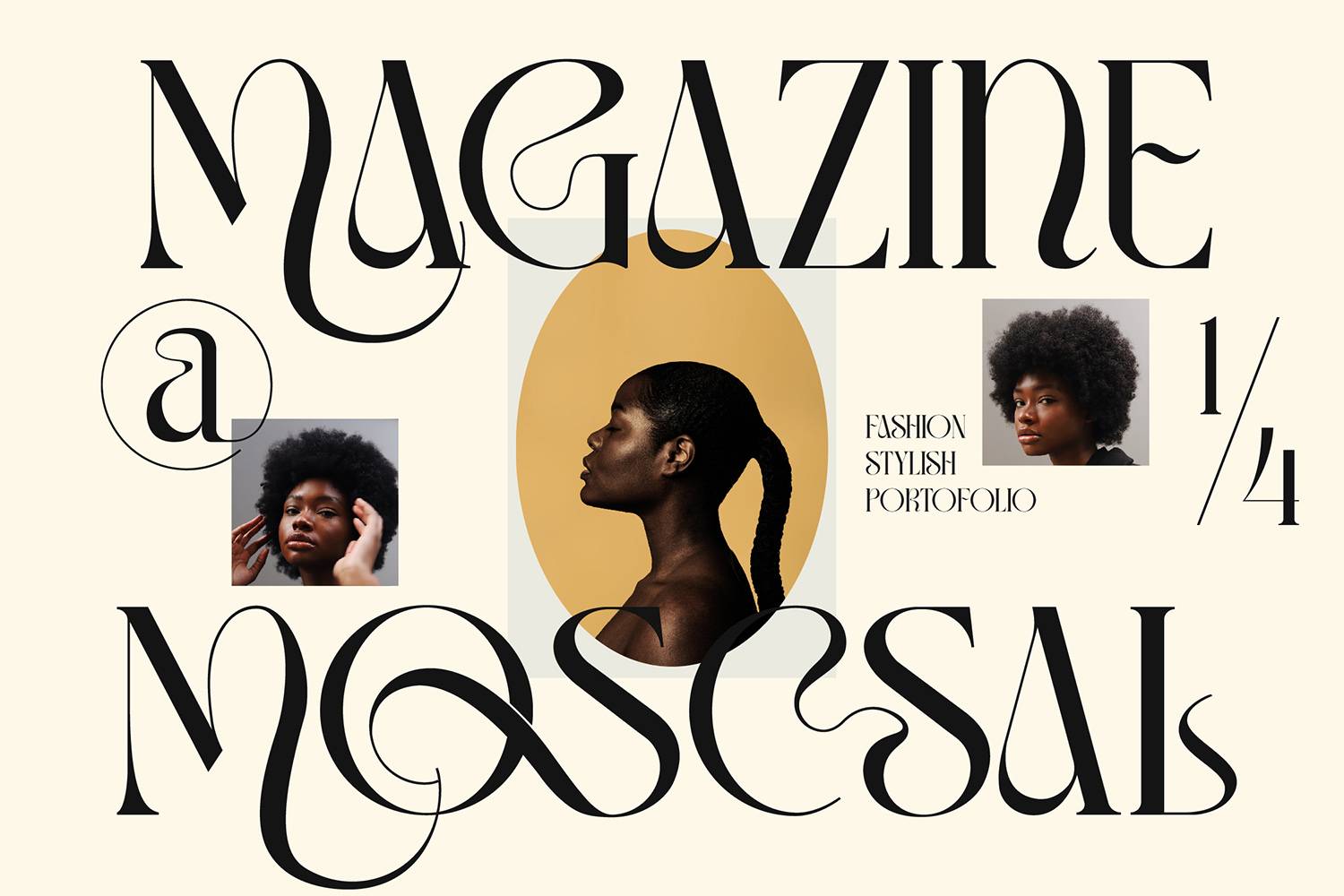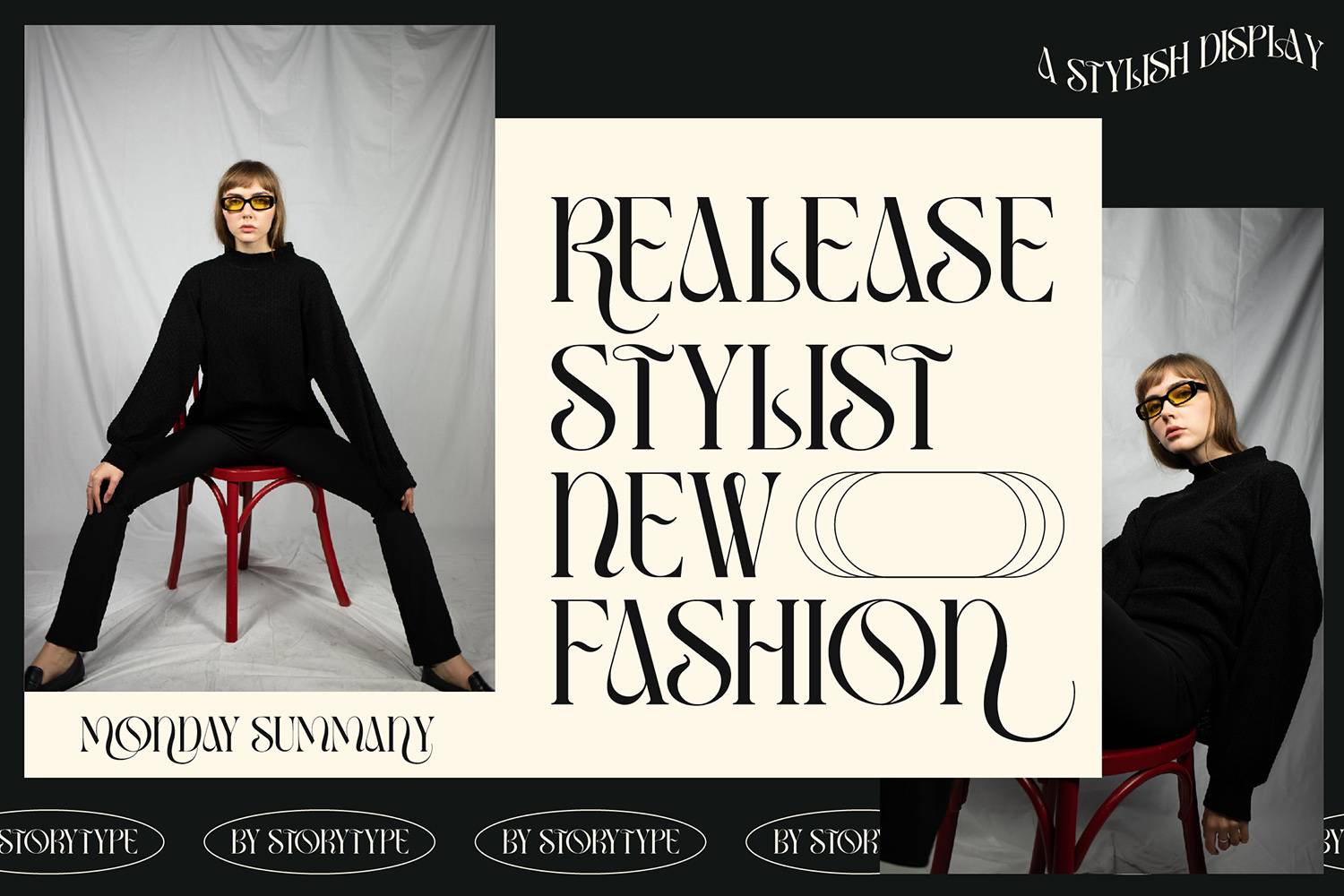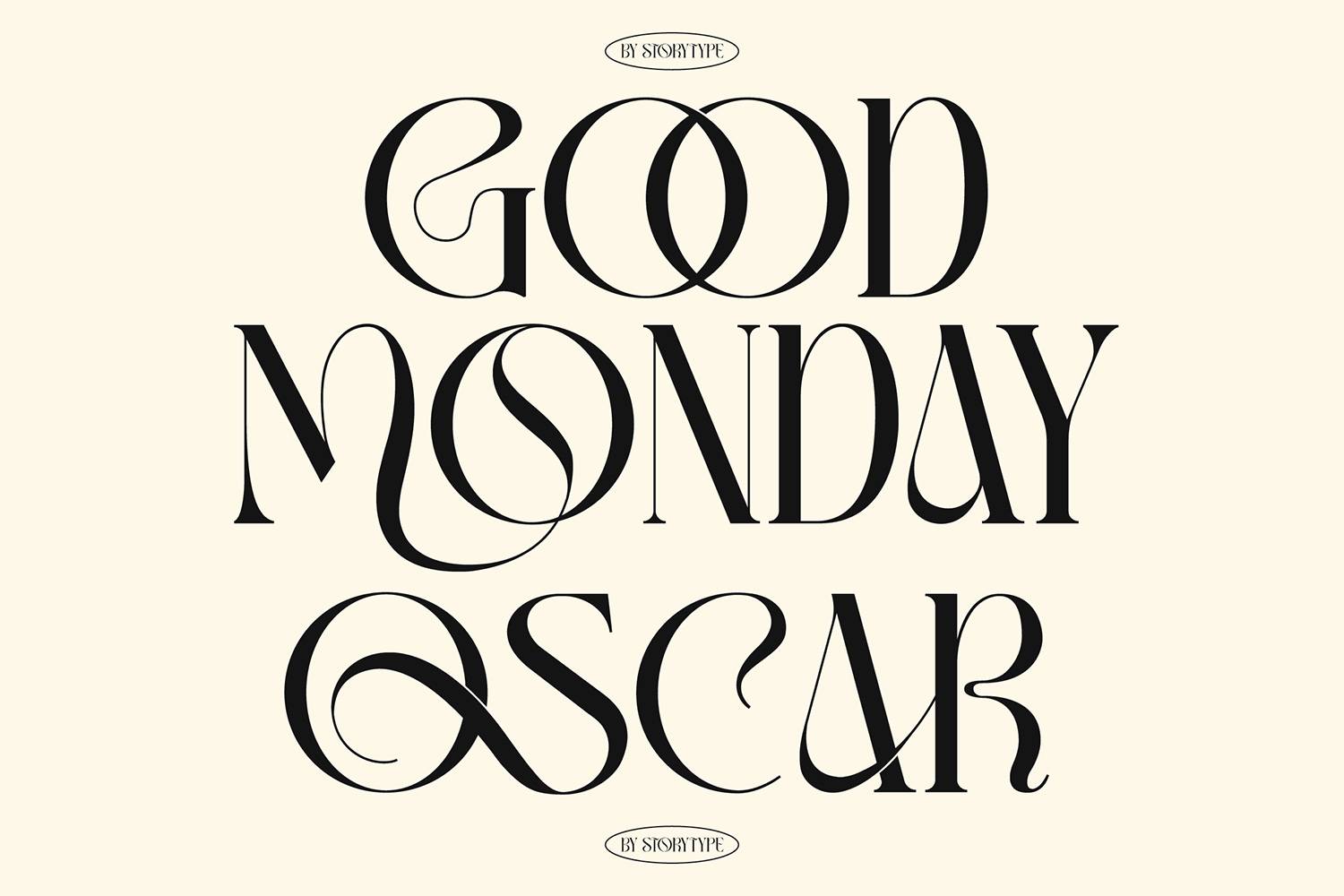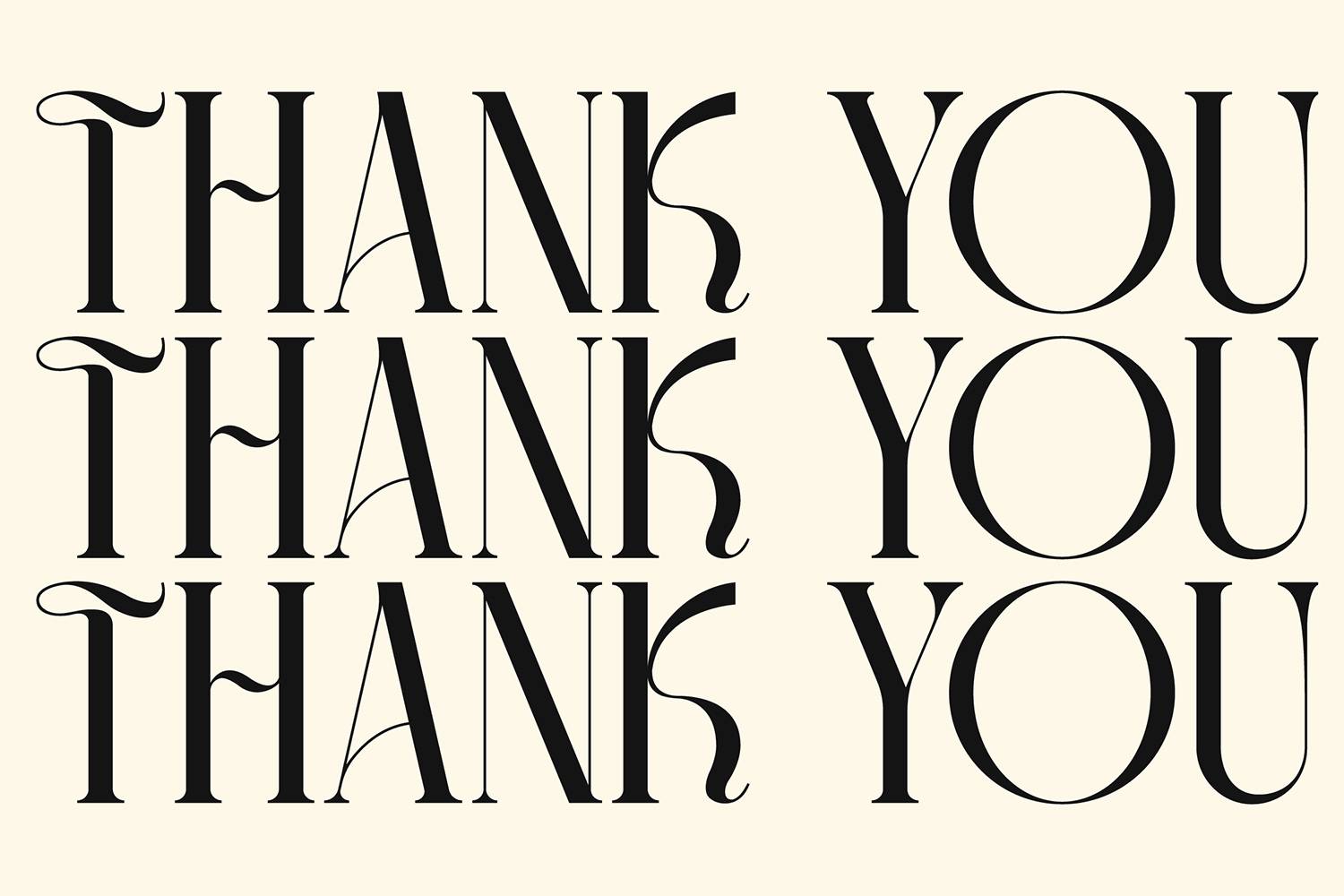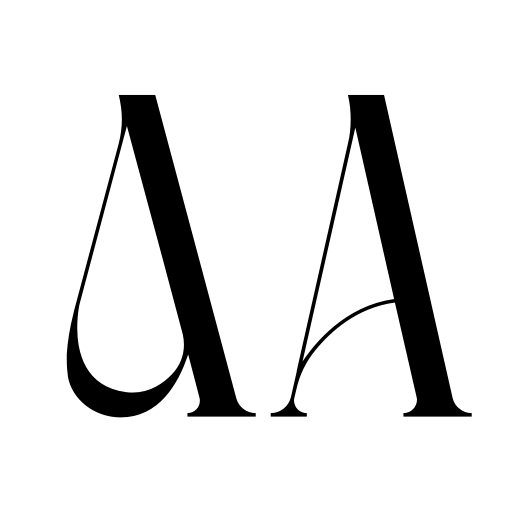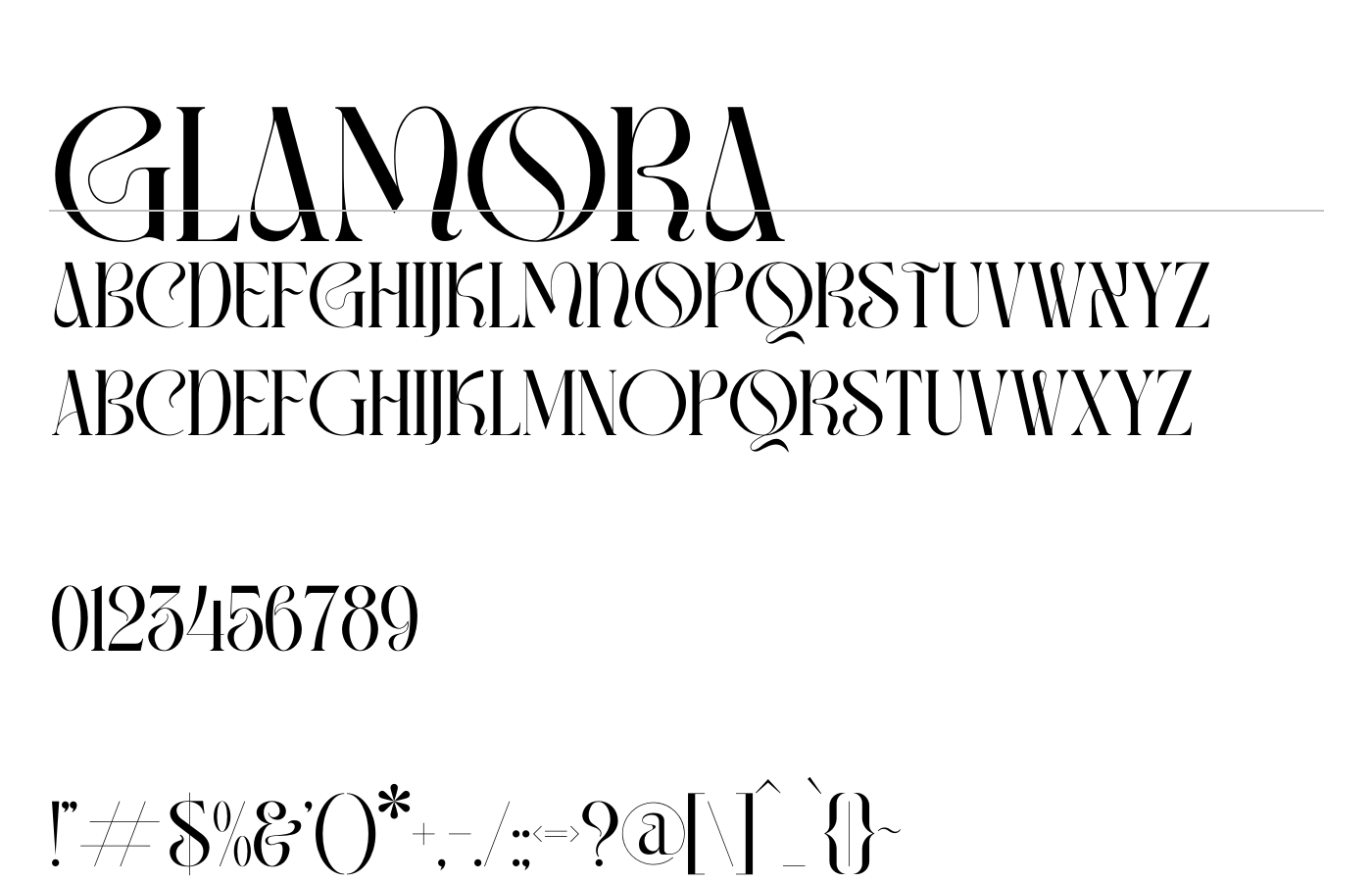
Glamora is a stylish serif font with a modern, high-contrast design featuring elegant, thin strokes paired with bold vertical lines. Its distinctive letterforms blend sharp angular details with smooth curves, creating a sophisticated and artistic flair perfect for luxury branding, editorial headlines, and fashion-focused projects where a refined and glamorous look is desired.
Glamora Font
About Glamora Font